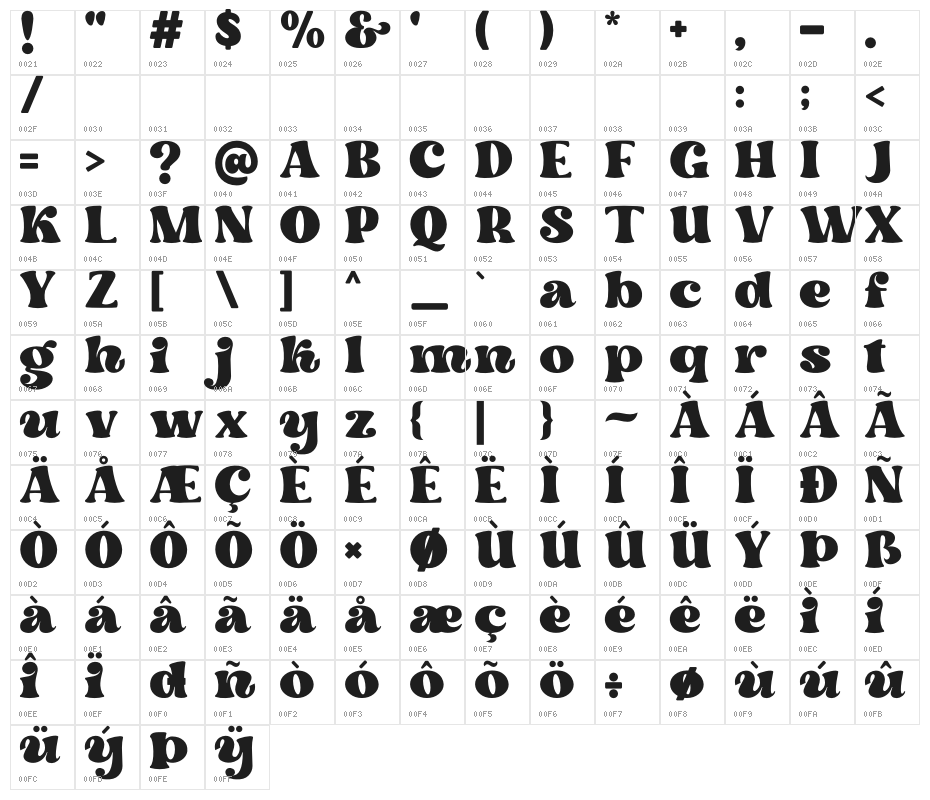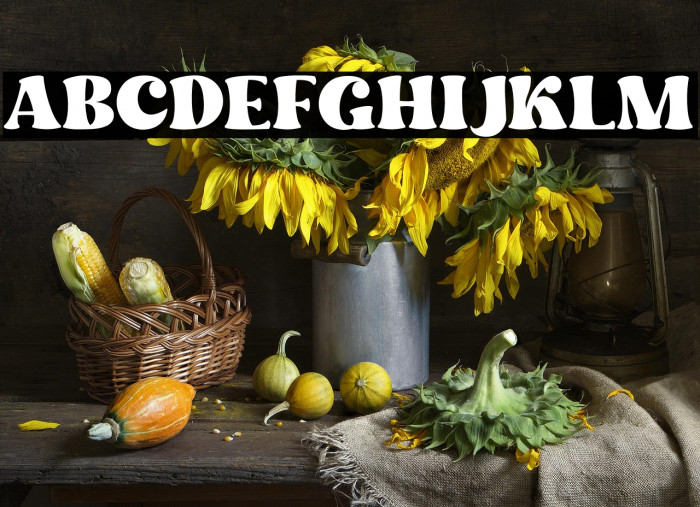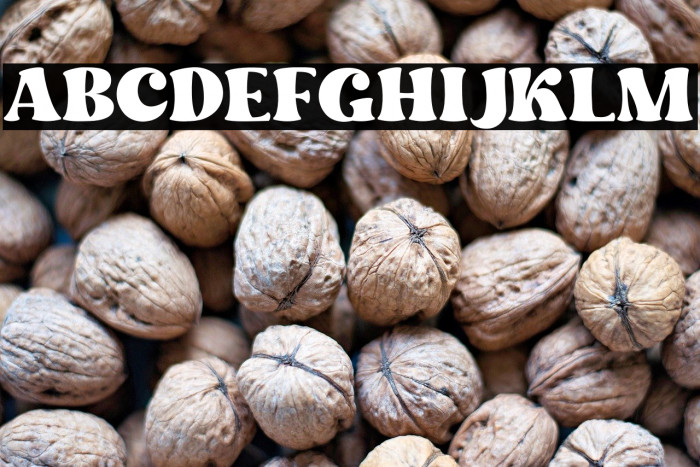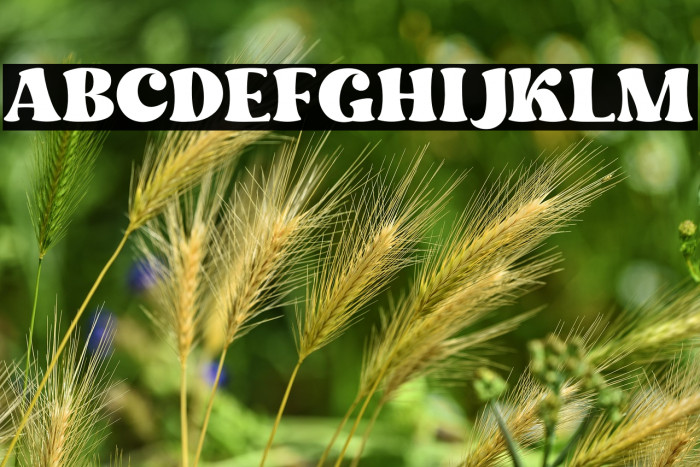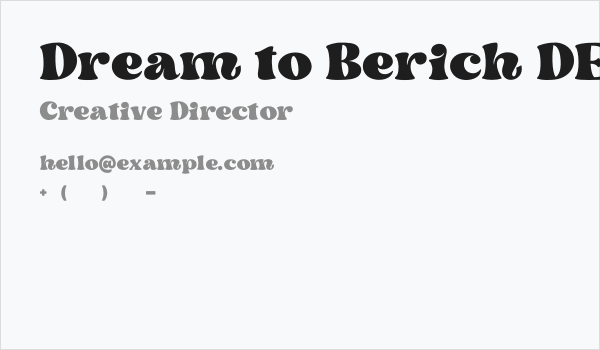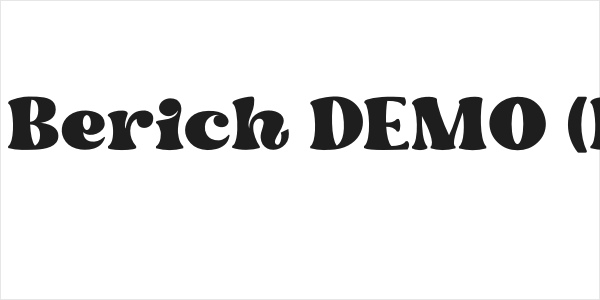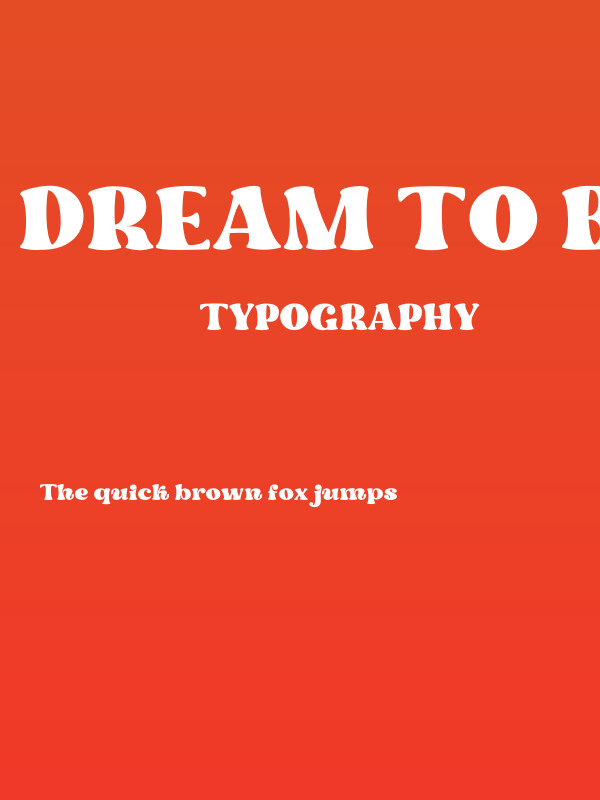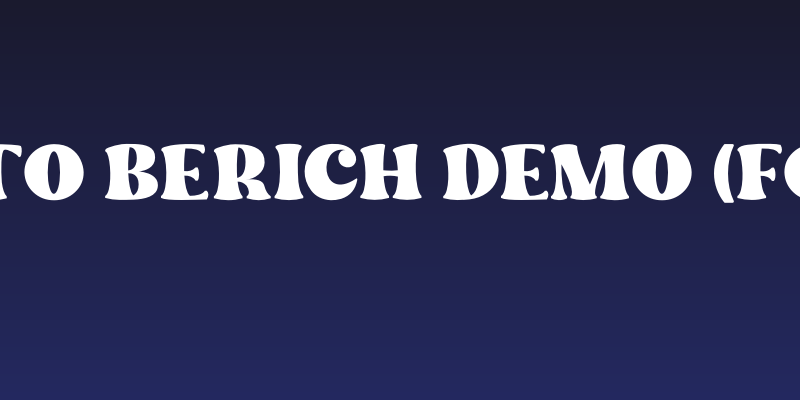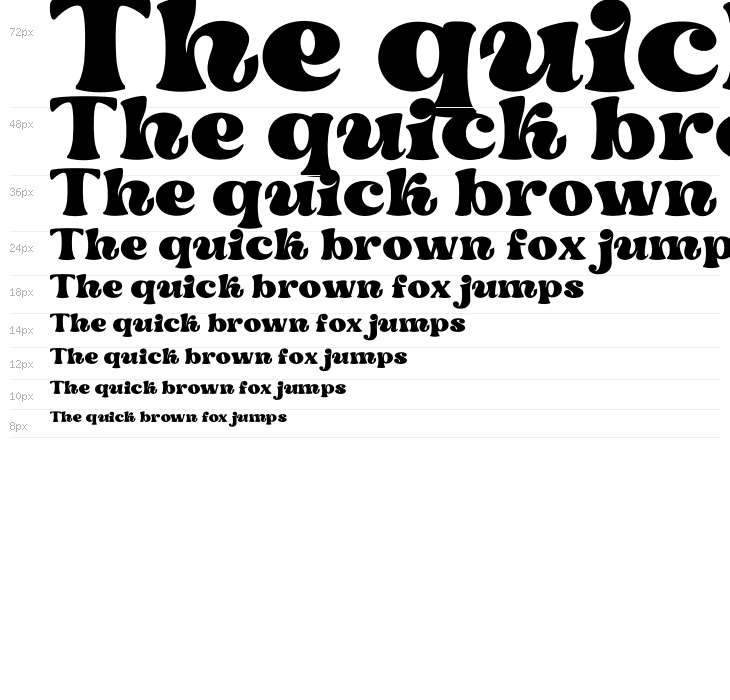
Dream to Berich DEMO (FOR USE P Font
Dream to Berich DEMO (FOR USE P Description
This font features a bold and playful design, characterized by its thick, rounded strokes and whimsical curves. The uppercase letters exhibit a strong presence with their wide, exaggerated serifs, while the lowercase letters maintain a consistent, bubbly aesthetic. The numbers and special characters follow the same playful style, making them stand out with their unique shapes. This font's overall appearance is both eye-catching and approachable, making it suitable for a variety of creative applications.
| Proposed Projects | Ideal for children's books, playful branding, posters, and creative advertising campaigns. |